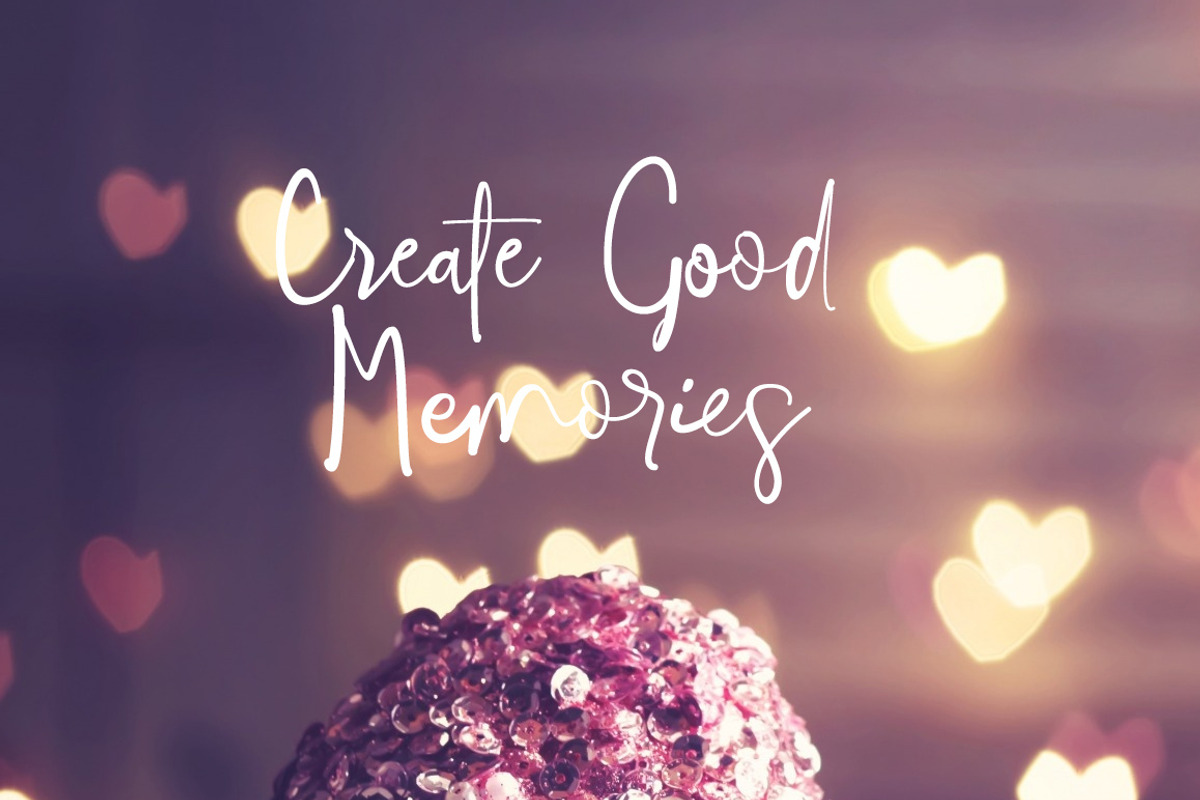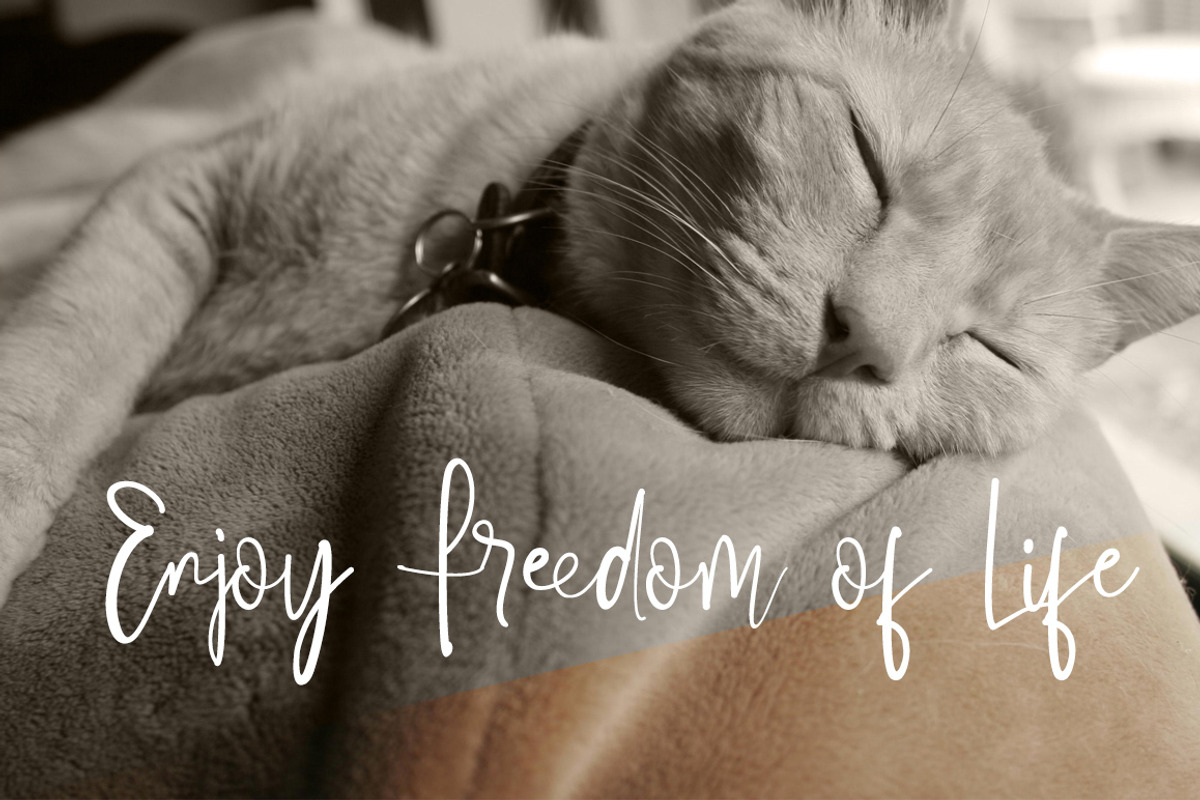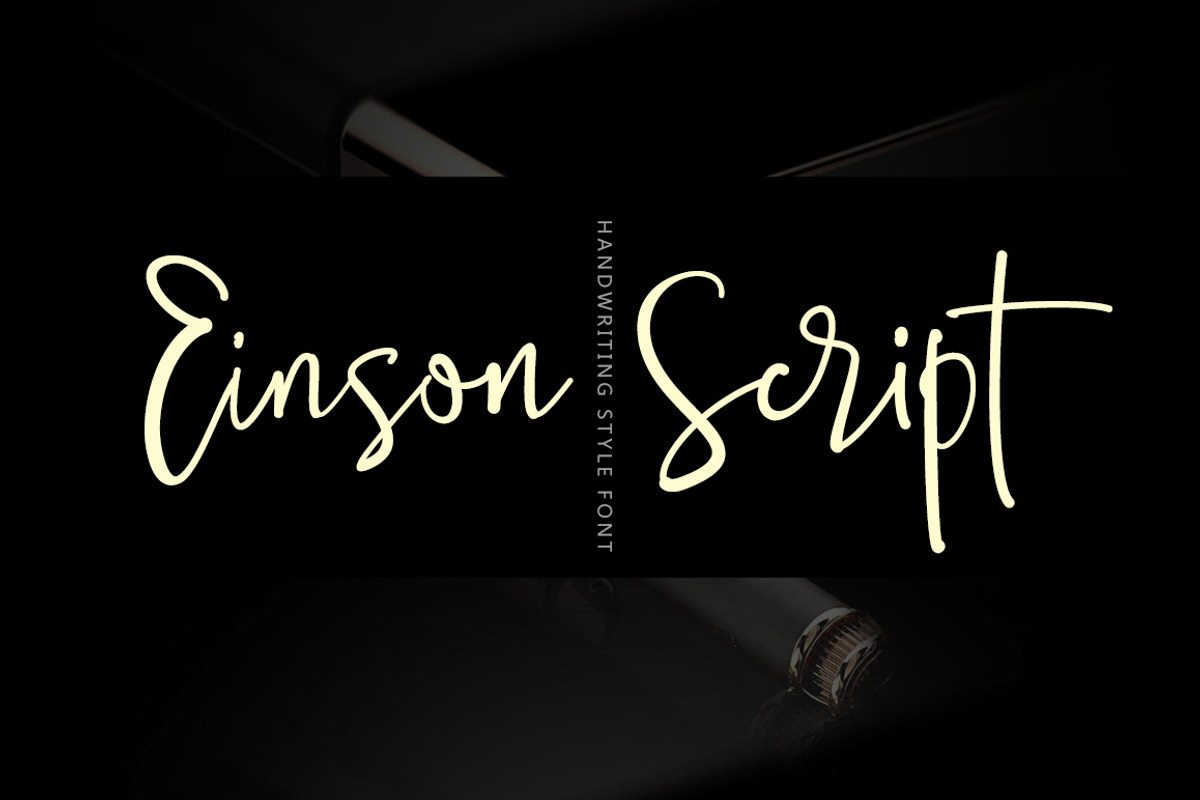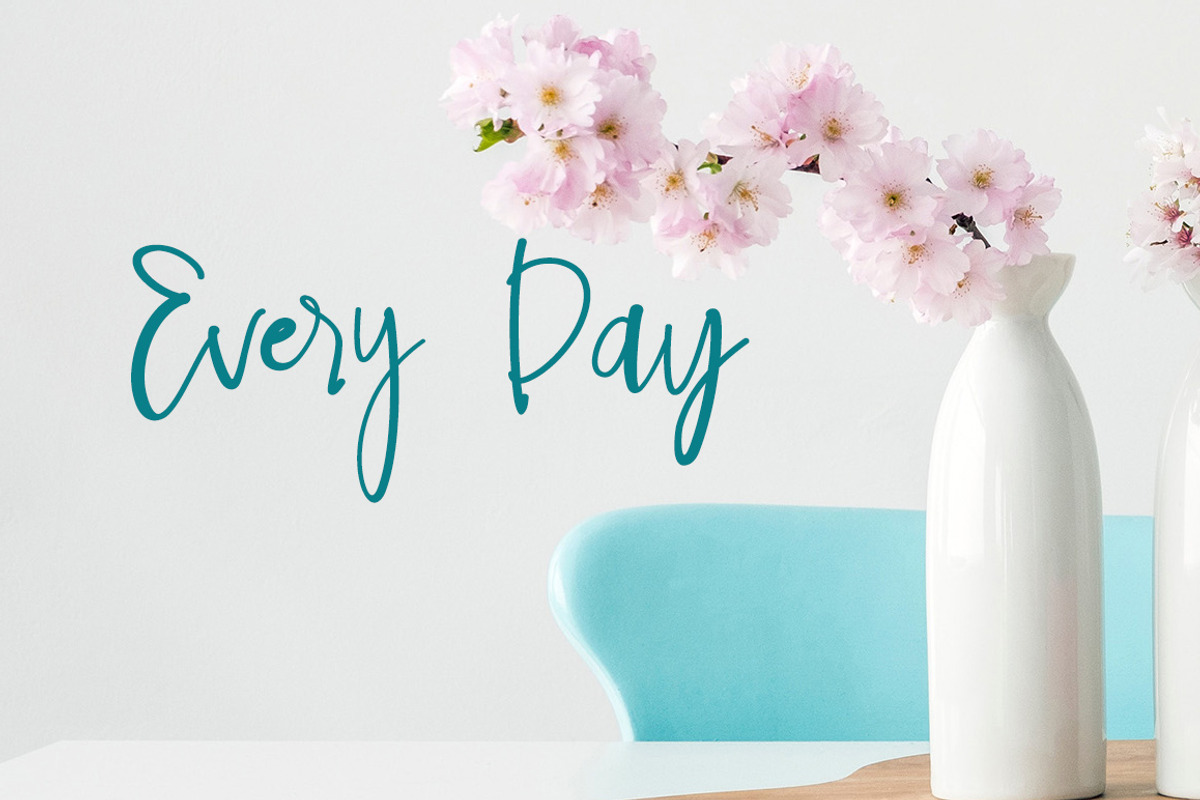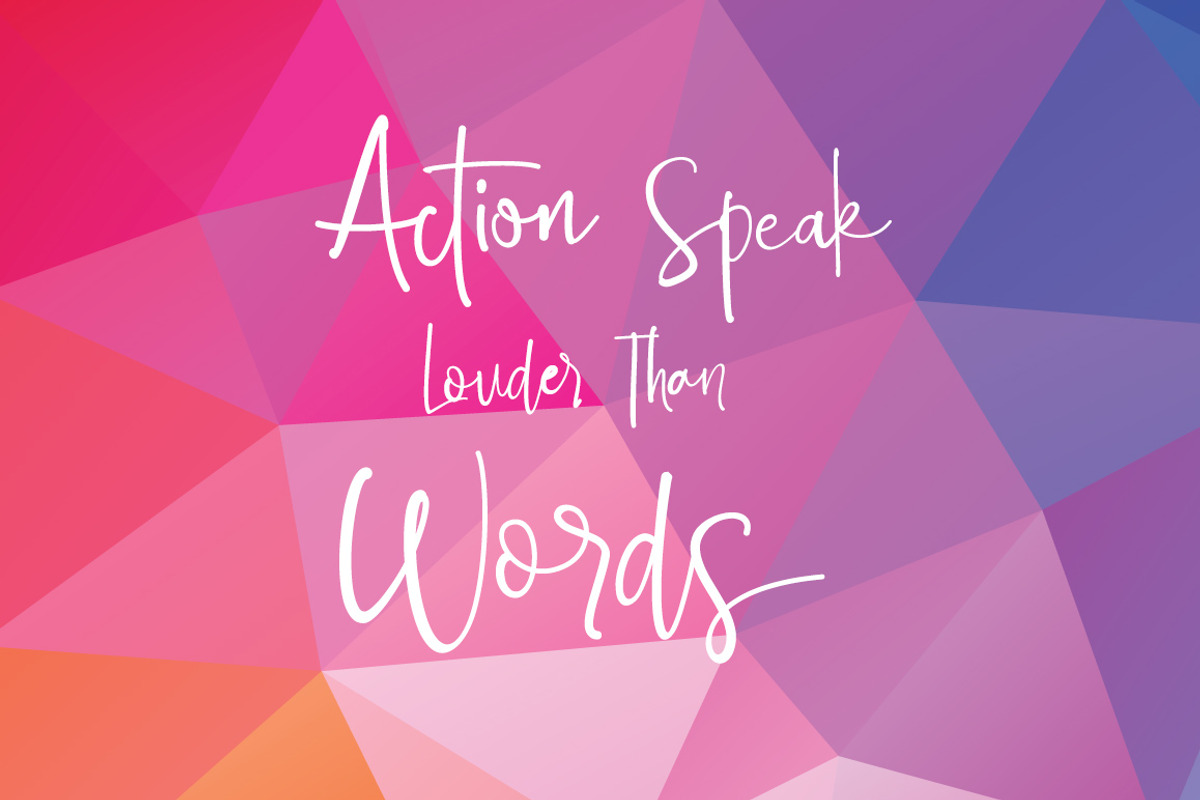
Einson Script Font
Einson Script Font is a set of handwritten font style, It is smooth, free, smart, can produce dozens of ligature glyph, The combination of a variety of changes.
Einson Script Font by alphadesign fits naturally into Branding, posters, packaging, typography.